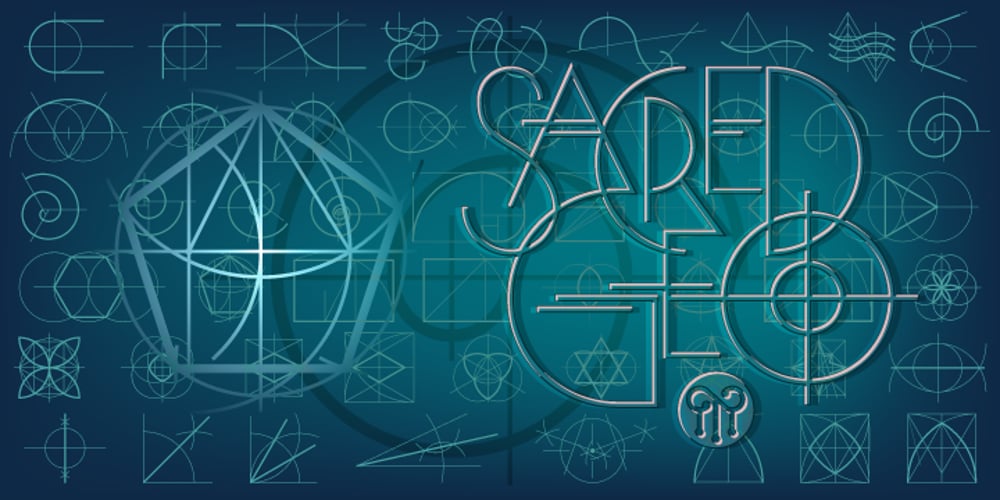
Sacred Geo
Sacred Geo font
Sacred Geo Font Family was designed by John Moore and published by John Moore Type Foundry. Sacred Geo contains 1 styles and family package options. Sacred Geo is a Dingbat font, containing the basic principles of geometry, perpendiculars, bisections, partitions of angles, curves joints aligned and asymmetric, thus the construction of the main spirals, construction of polygons as a square, rhombus, pentagon, hexagon, octagon and how to combine them into ornamental shapes. Discover the magical world of sacred geometry. Winner in the TL2012 International Biennial of LatinAmerican Typography, Tipos Latinos.